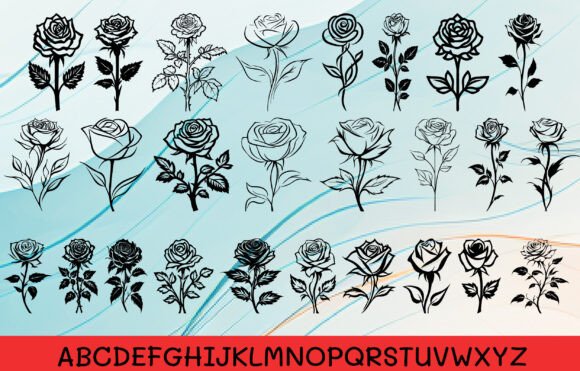
Introduction to Rose Loving Font
As I sat in my cozy home studio, surrounded by half-finished projects and scattered design materials, I stumbled upon a font that stole my heart – the Rose Loving Font. Its delicate, hand-drawn design and elegant flair instantly caught my attention, and I knew I had to learn more about it.
This stunning collection of 26 rose-inspired star designs, each representing a letter from A to Z, is a treasure trove for designers looking to add a touch of high quality and whimsy to their creative projects. With its seamless compatibility and use in both OTF and TTF file formats, it’s no wonder this font has become a valuable design resource for many.
Key Features of Rose Loving Font
- High-quality design: This font is crafted with precision and care to provide a unique and elegant touch to any creative project.
- Transparent background: Enjoy seamless integration with your designs by using the transparent background option, ideal for layered projects.
- Unique characteristics: The Rose Loving Font features a delicate and intricate design, making it perfect for wedding invitations, greeting cards, and other romantic projects.
- Design resource: This font is a valuable addition to any designer’s toolkit, offering a versatile and stylish solution for various creative endeavors.
Honest Review: Rose Loving Font
One of the things that caught my attention is the transparent background, which makes it easy to use as a design resource. It’s versatile and can be used in a variety of contexts, from wedding invitations to branding materials.
- High-quality design with a lovely, delicate feel ✨
- Perfect for creative projects, especially those with a feminine touch
- Limited character set, which may not be suitable for longer text-based projects ⚠️
- No bold or italic versions available, which may limit its use in certain contexts
Overall, I’m impressed with the Rose Loving Font. It’s a beautiful addition to any design library, and its transparent background makes it easy to use as a design resource. While it may have some limitations, it’s still a valuable asset for designers looking for a high-quality font with a unique feel.
Rose Loving Font
Rose Loving Font is a beautiful, high-quality design resource perfect for any creative project. With a transparent background, this font can be easily integrated into various design applications.
Tips for Getting the Most Out of Rose Loving Font
Experiment with different font sizes, colors, and combinations to achieve unique and eye-catching designs.
Rose Loving Font is ideal for wedding invitations, baby showers, and other feminine-themed events. It’s also perfect for creating romantic and elegant designs for social media, websites, or print materials.